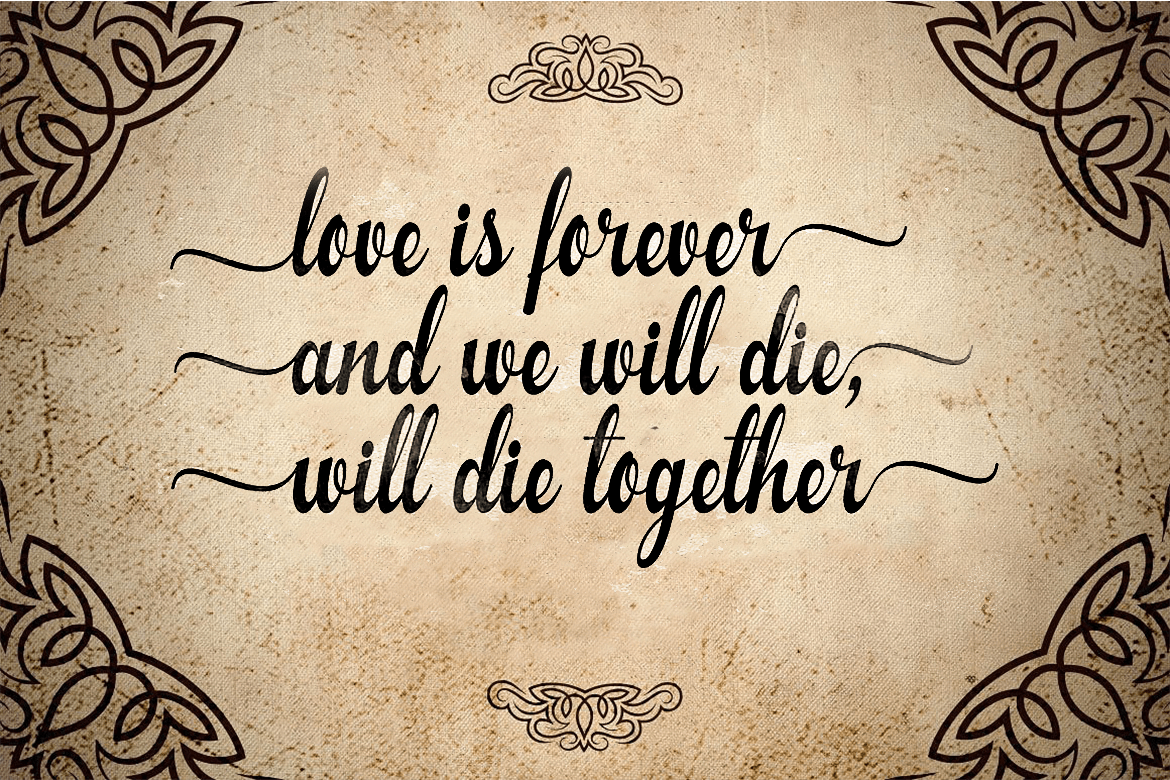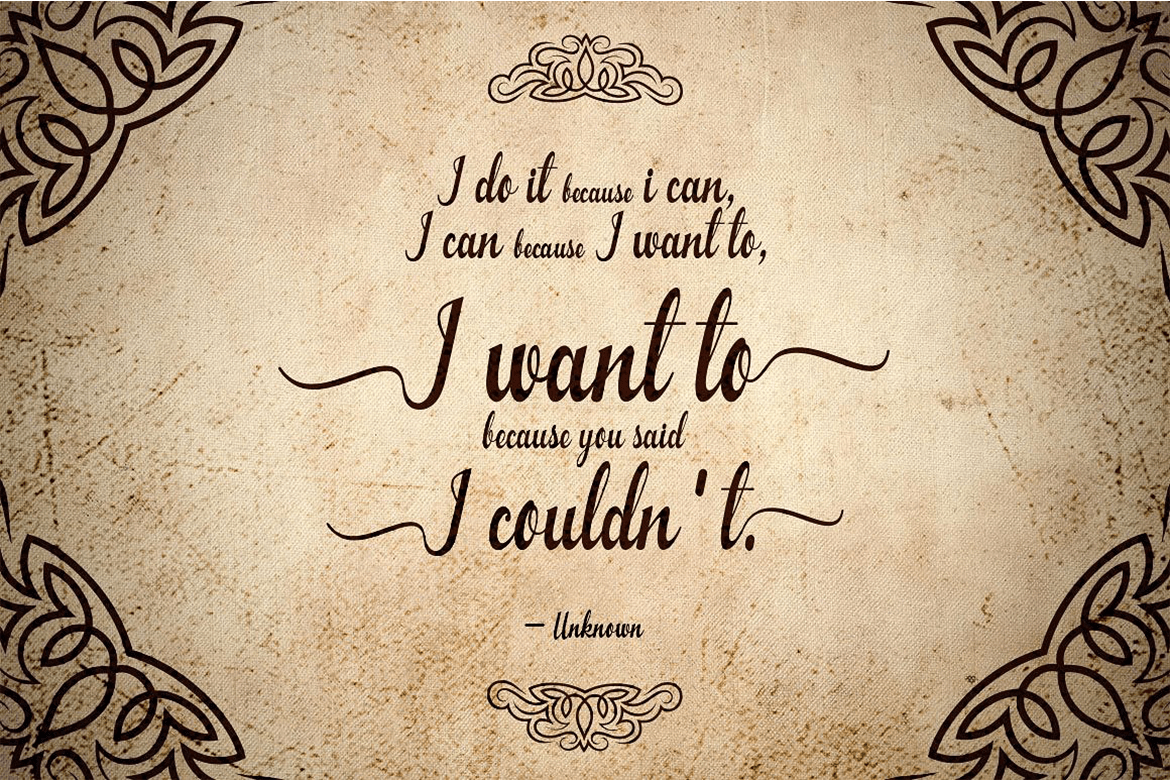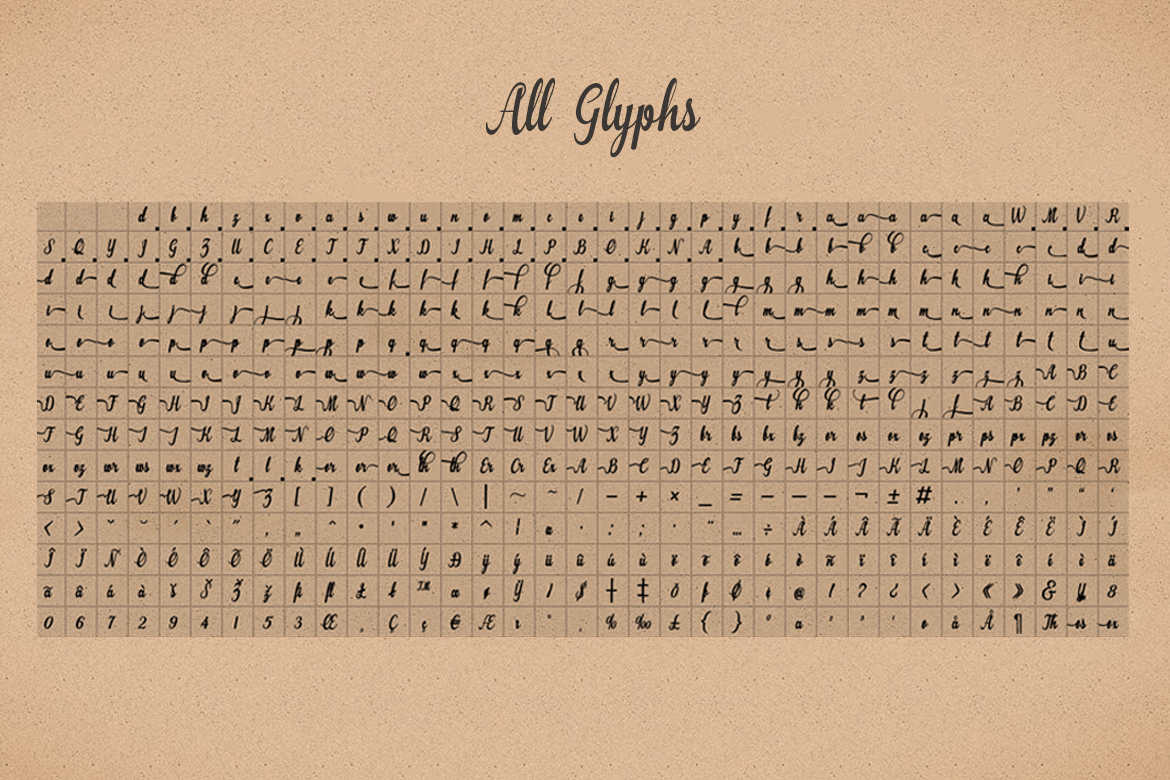
Monalisa Script
Mona Lisa is a unique script with the characteristic thick and thin lines of pointed pen calligraphy. Ideal for labels, events, and many other applications requiring a unique and elegant look.
The Monalisa Script font family includes 503 glyphs.
Monalisa Script by Groen Studio